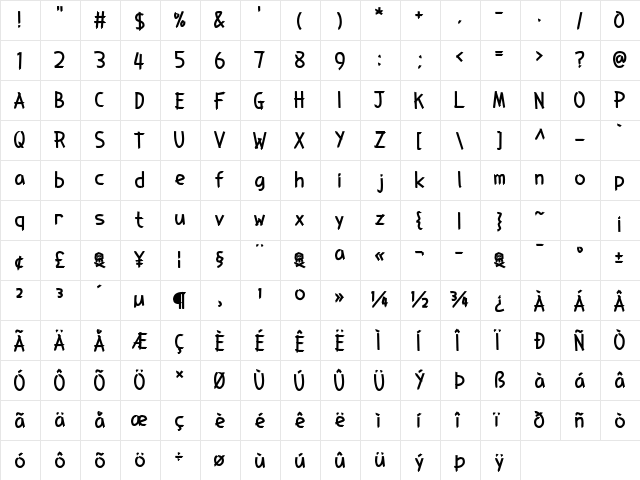
Sawyer's Whitewash Regular
Design Context for Sawyer's Whitewash Typeface
Sawyer's Whitewash is a composed and adaptable typeface that performs quietly and consistently across a wide range of design contexts.